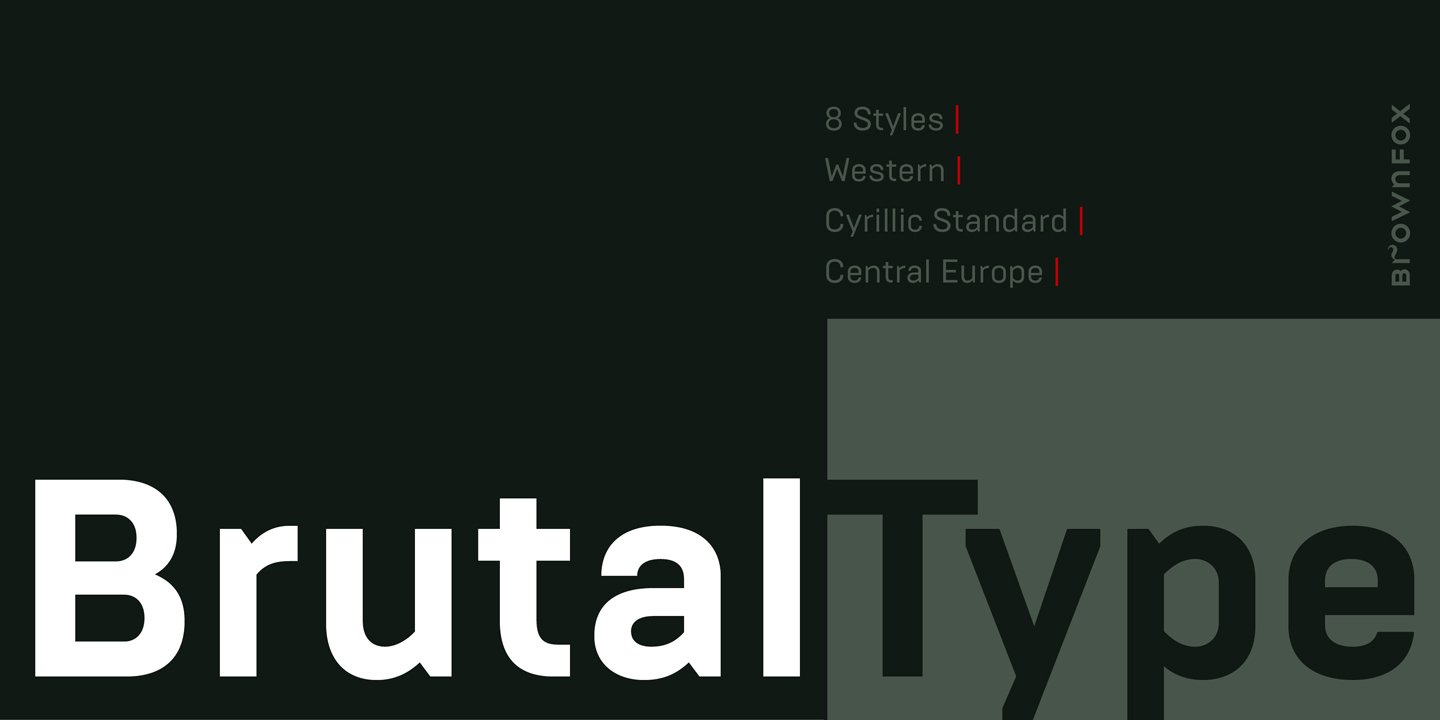
Brutal Type Font excels in various design applications including brutalist architecture branding, industrial design logos, concrete construction signage, raw material packaging, architectural firm materials, urban development projects, minimalist poster designs, and stark advertising campaigns. This raw typeface adapts powerfully to both uncompromising digital platforms and concrete print materials, making it perfect for designers seeking brutalist strength and architectural honesty in their visual communications.
Brutal Type Font generates excitement among design professionals due to its uncompromising character and brutalist styling that instantly conveys raw power and architectural integrity. The font's stark letterforms and concrete proportions create an immediate sense of industrial strength and unfiltered authenticity. Its brutal personality makes it particularly appealing for brands wanting to communicate raw honesty, industrial power, and uncompromising quality in their visual identity.
The Brutal Type Font family encompasses multiple weights and styles including Regular, Bold, Light, Heavy, and Condensed variations. Each family member maintains brutalist design principles while offering distinct architectural characteristics. The Light weight provides subtle brutal elegance for refined applications, while the Heavy version delivers maximum impact for industrial headlines and architectural brand statements.
Architectural designers frequently choose Brutal Type Font Free Download for projects requiring both brutalist authenticity and industrial distinction. This typeface demonstrates exceptional effectiveness across architectural industries including construction firms, industrial companies, urban planners, and concrete specialists. Its brutal character allows organizations to communicate raw strength while maintaining excellent readability and uncompromising visual appeal that reflects the honest power of brutalist architecture.